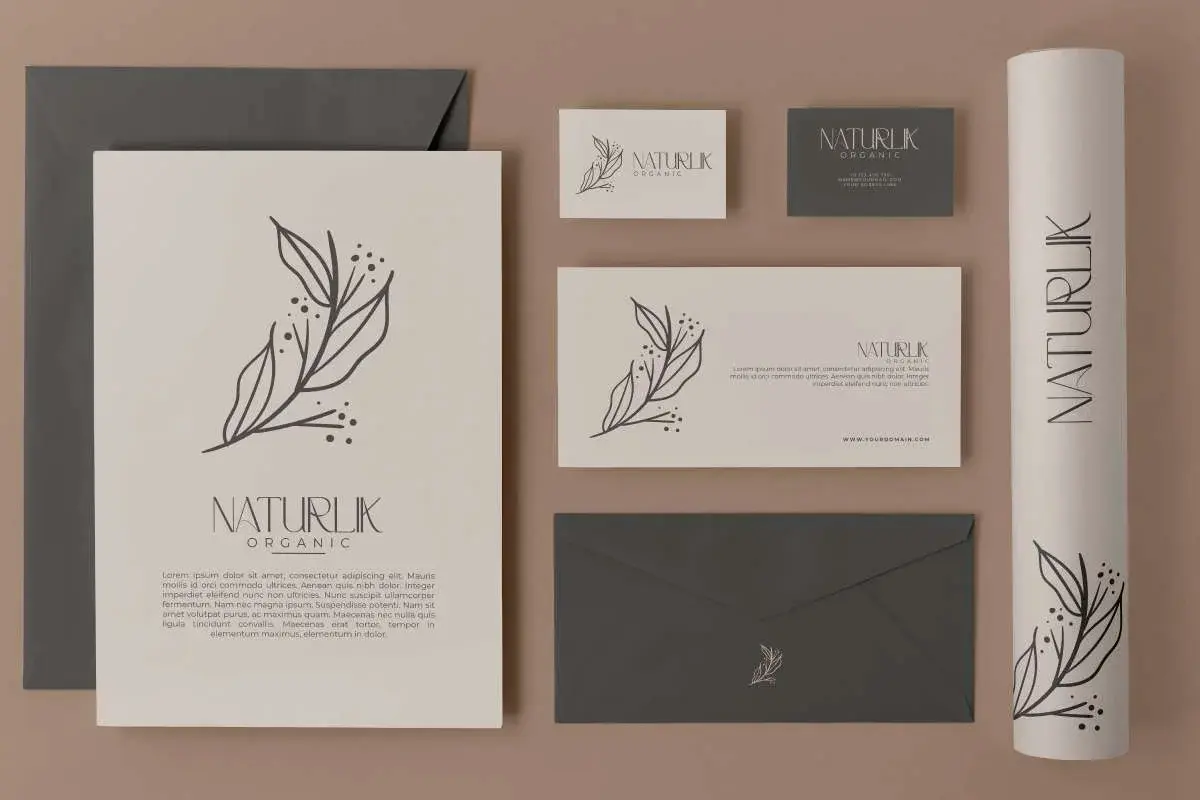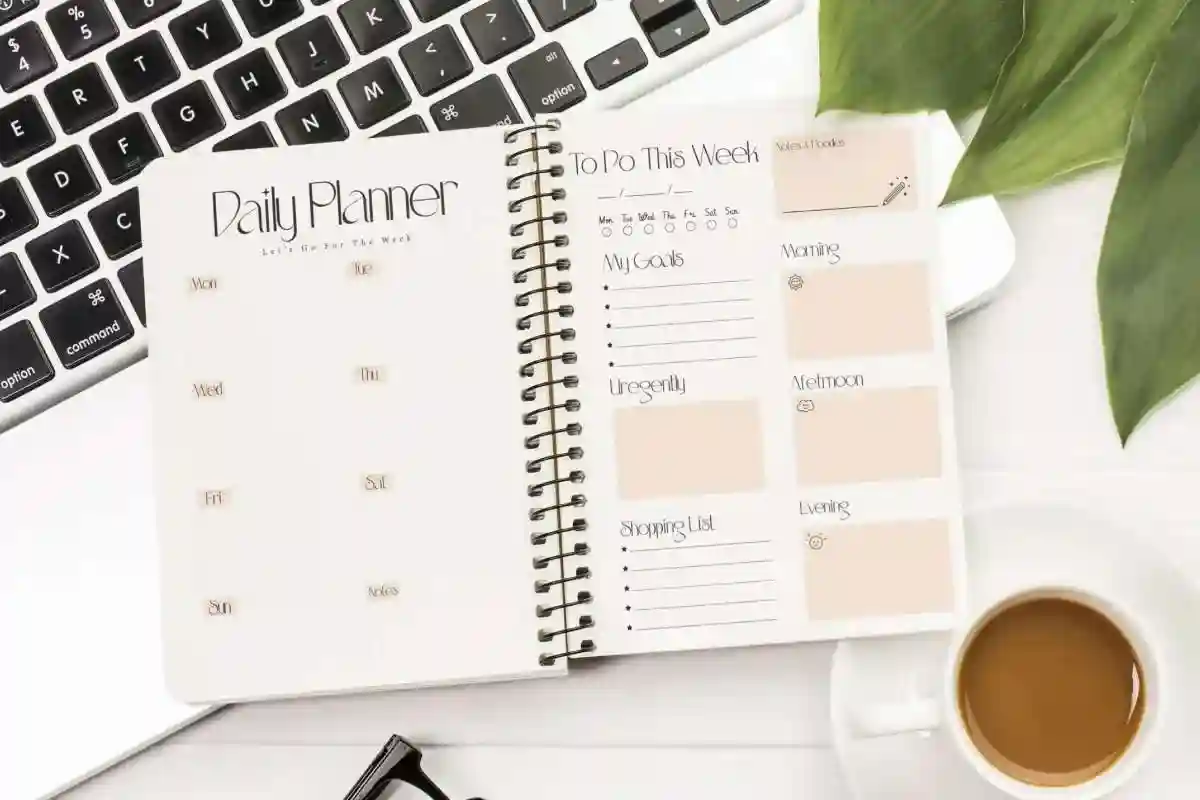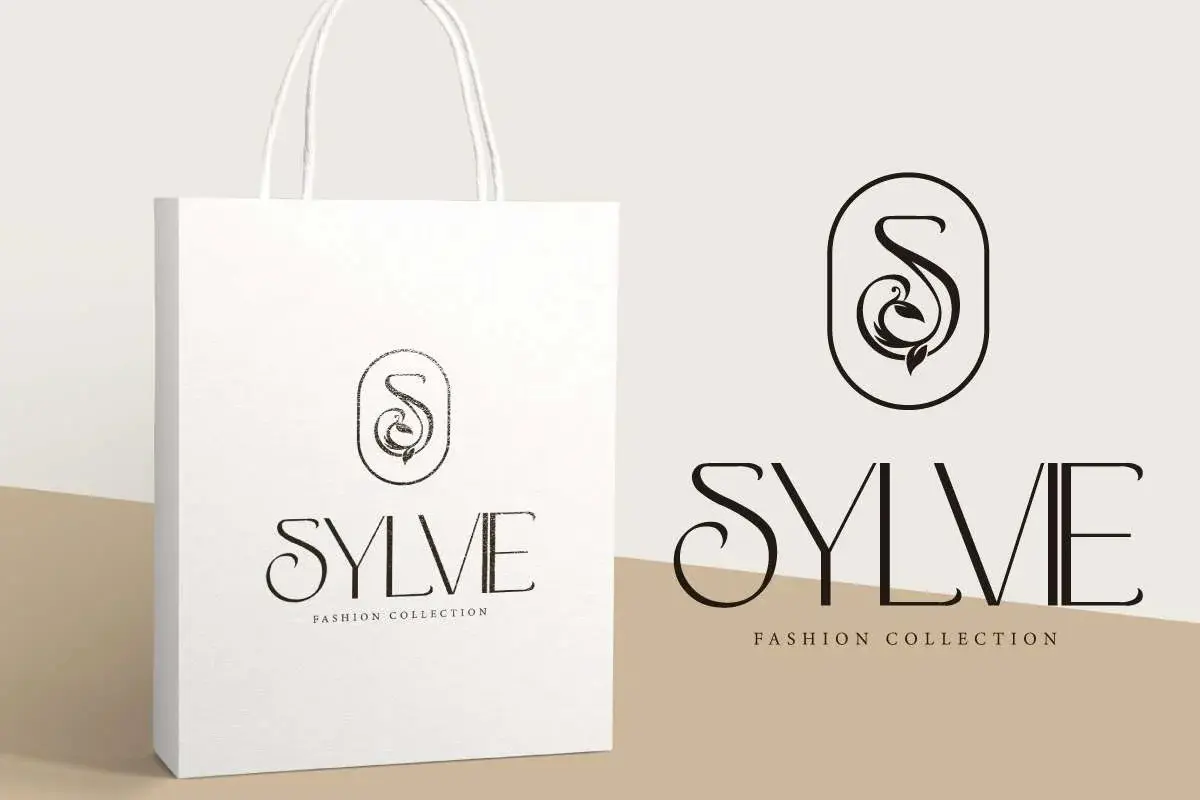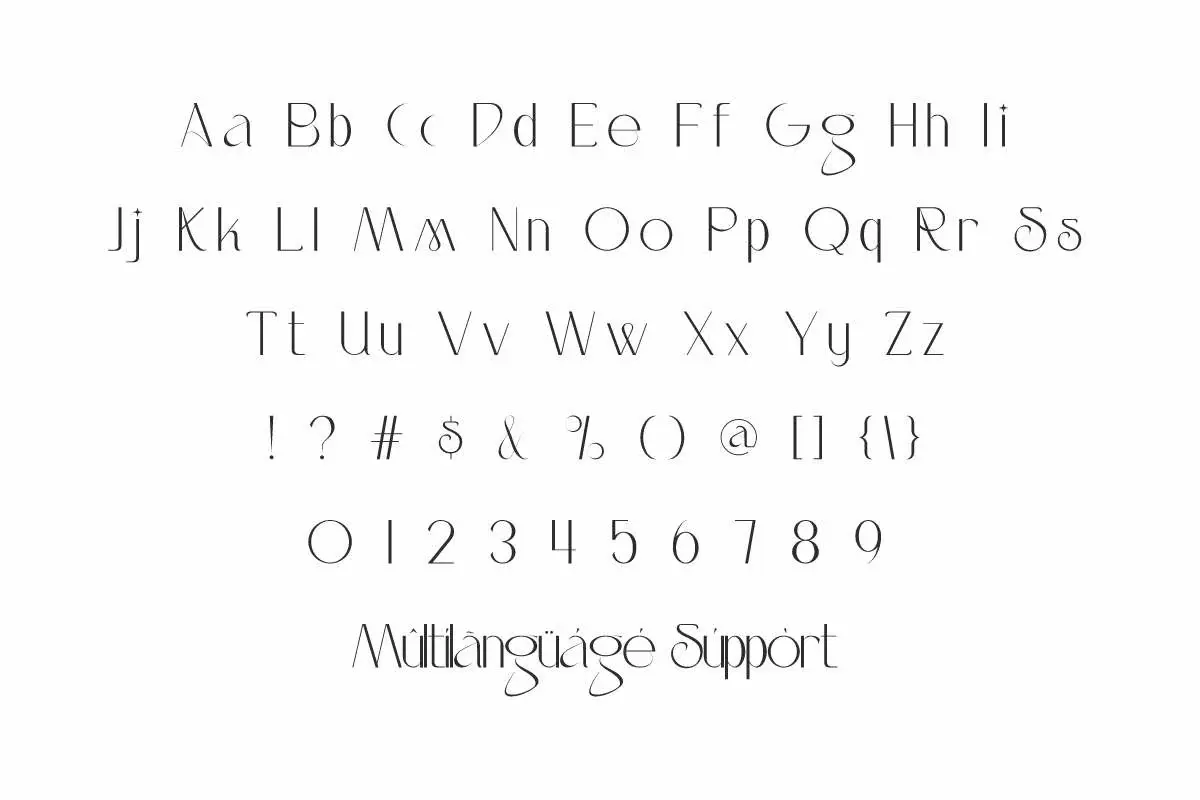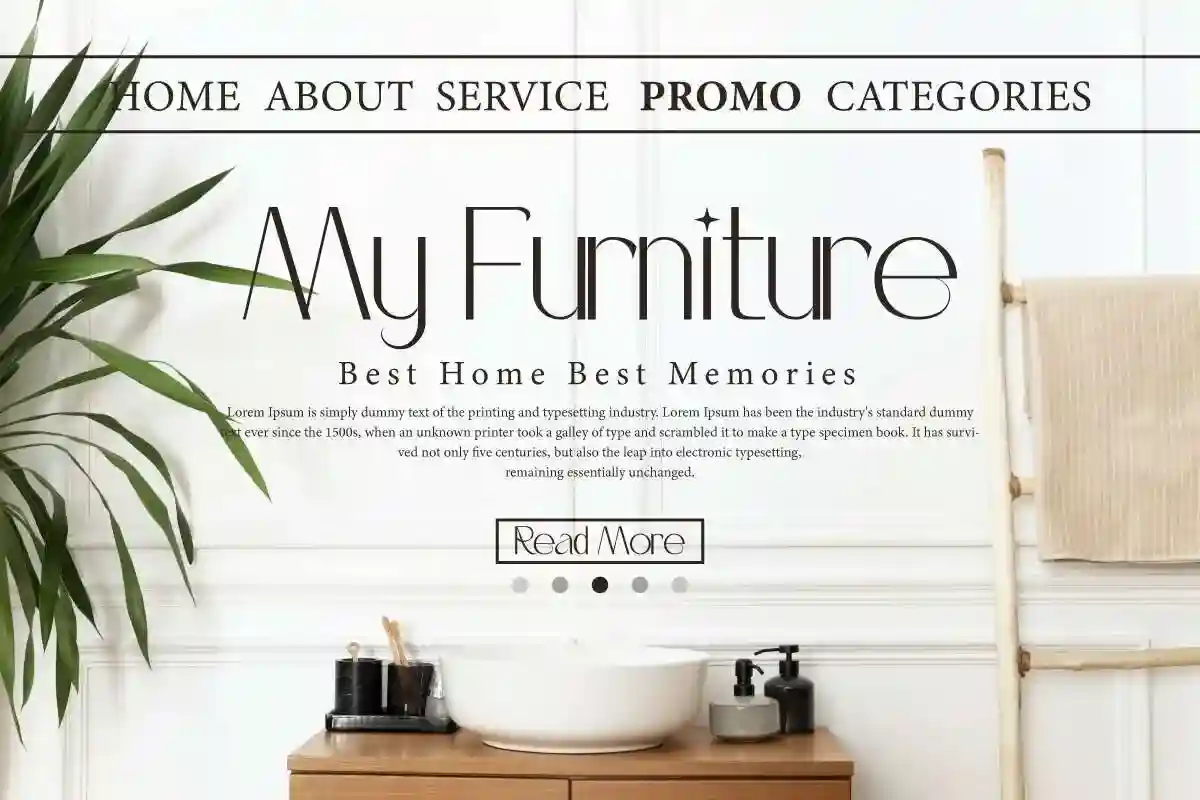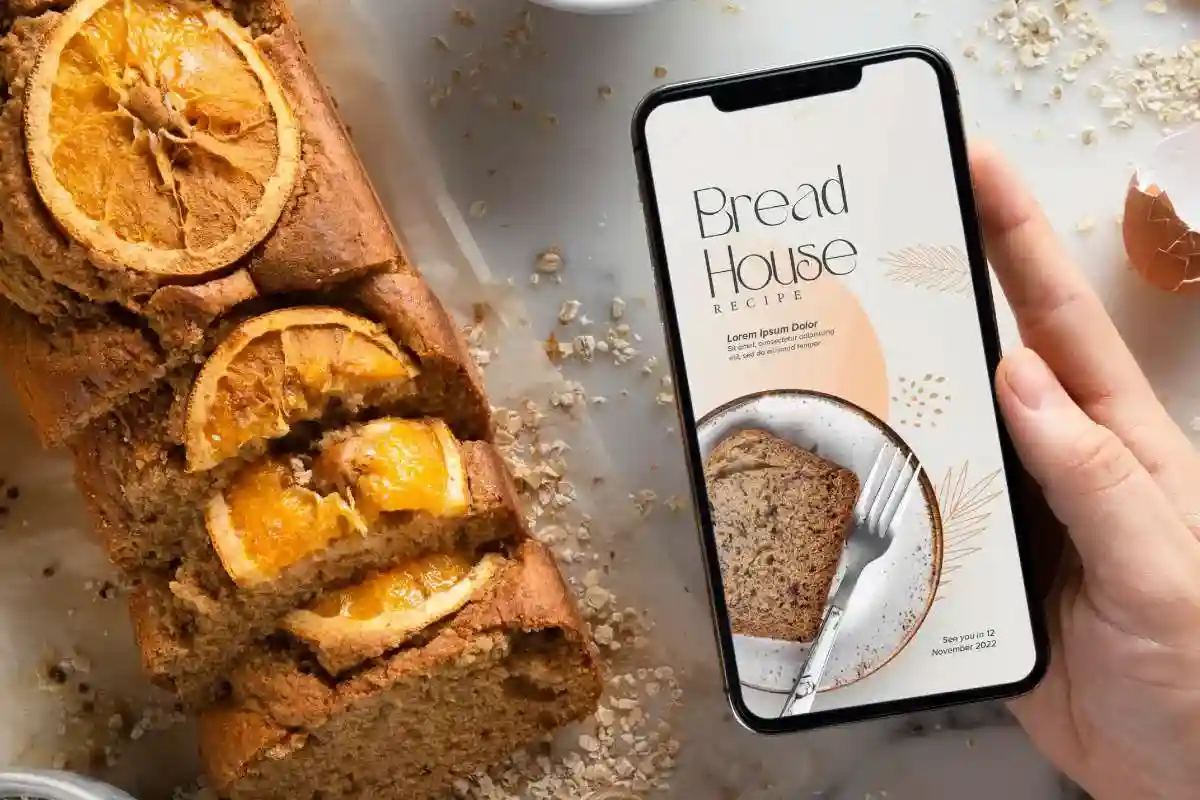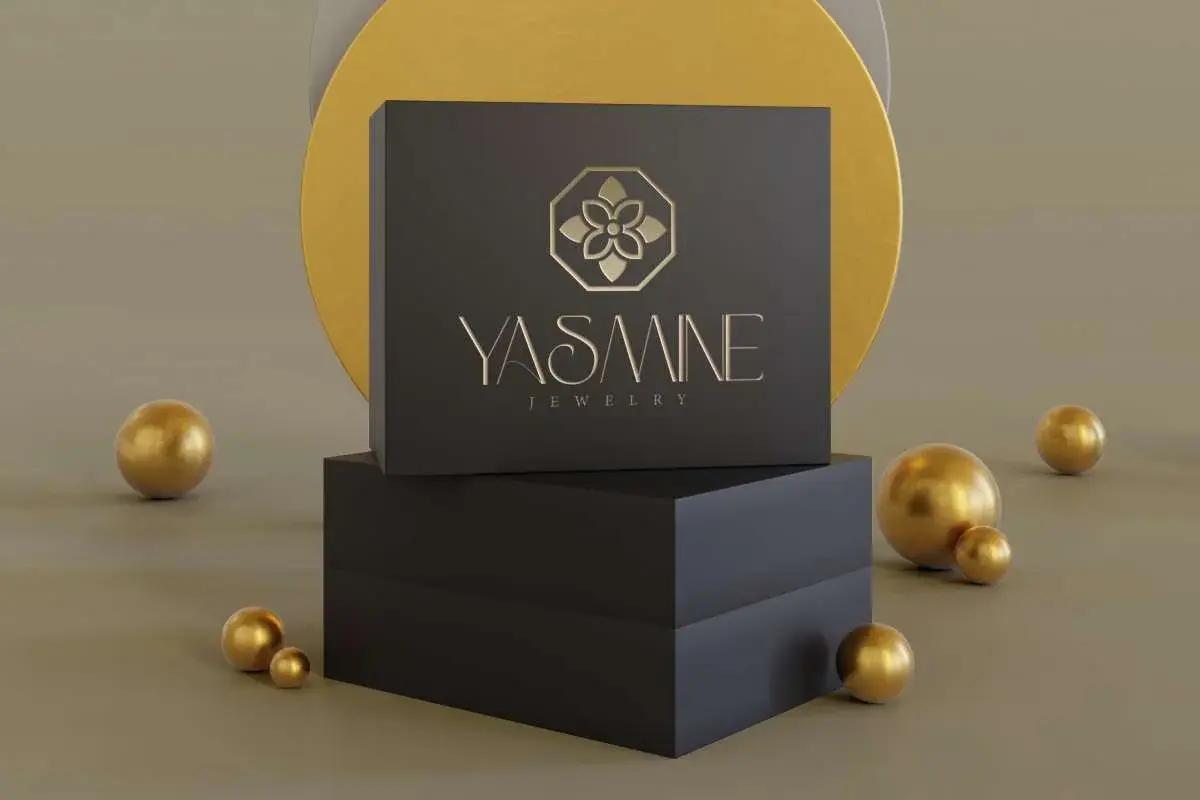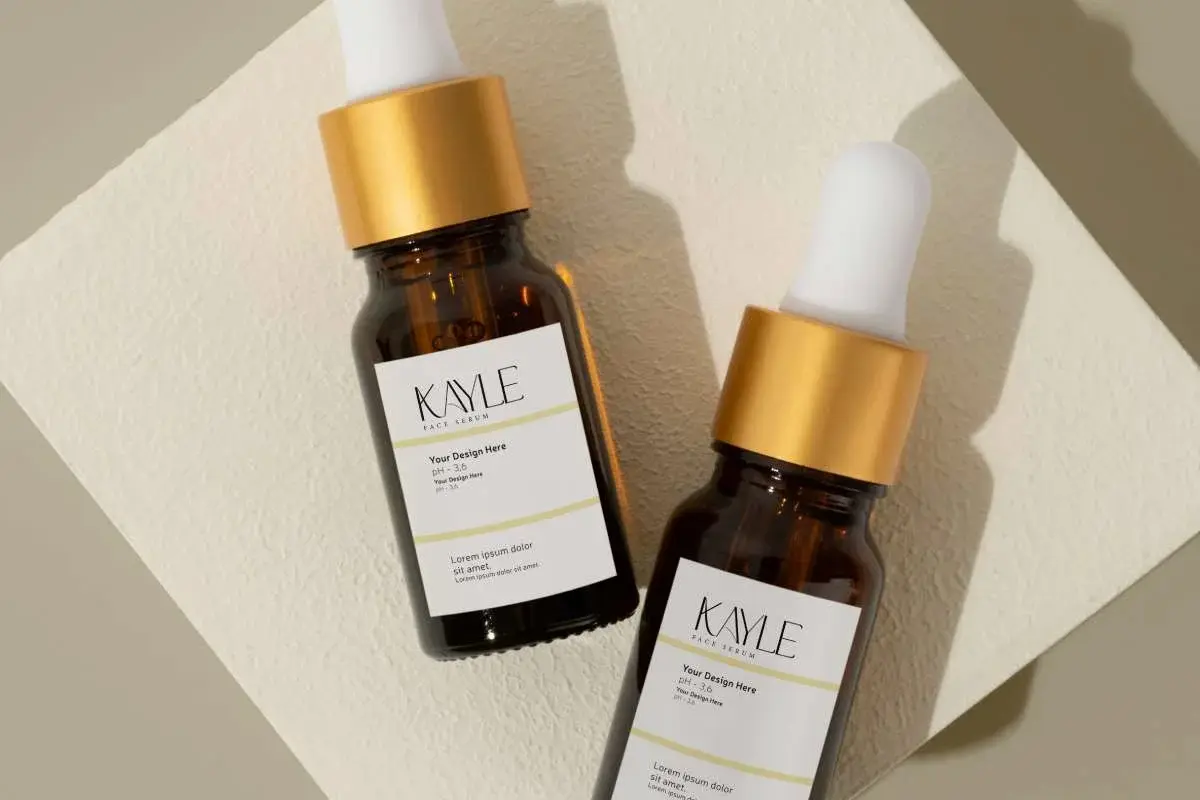
Daily Super Font is a minimalist and elegant display font by NihStudio. This font is great for branding, brochure, fashion, homeware, jewelry, labels, restaurant, stationery, etc.
Daily Super Font is a glamour display font, created by NihStudio. This font has thin and high lines so that it can show a luxurious elegant look. So it’s still easy to read and suitable for many industries, such as cosmetic, fashion, furniture, jewelry, publishing, restaurant, spa salon, and more!
Daily Super Font will make for an awesome design! There are various projects you can create using this font, such as apps, billboard, box jewelry, header, invitations, labels, magazine catalog, product design, shopping bag, stationery, website, etc.
Daily Super Font comes with full set of Uppercase and Lowercase Basic Characters that are similar but not the same, Number, Punctuation and Symbol, and also supports multilingual characters. Ready to use both on Windows machine or Mac with simple installations. It’s tested to work well in the Adobe Apps (Illustrator, Adobe InDesign, Adobe Photoshop) CorelDraw, and others. PUA Encode Characters means you can access all the glyphs and other characters easily – Fully accessible without additional design software.